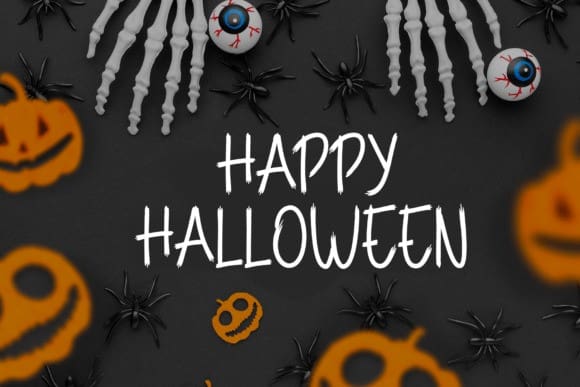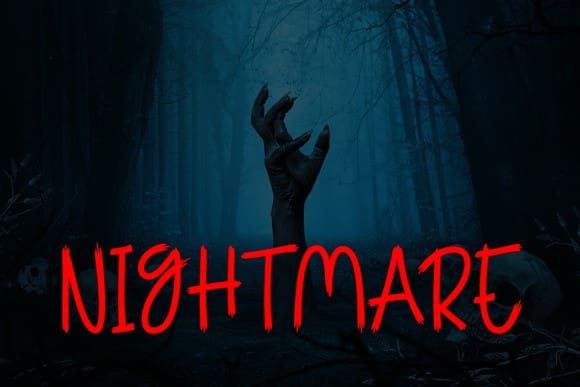
House Kuntilanak Font
House Kuntilanak Font is a cool and slightly scary handwritten display font. Add it to your horror-themed projects and enjoy the results!